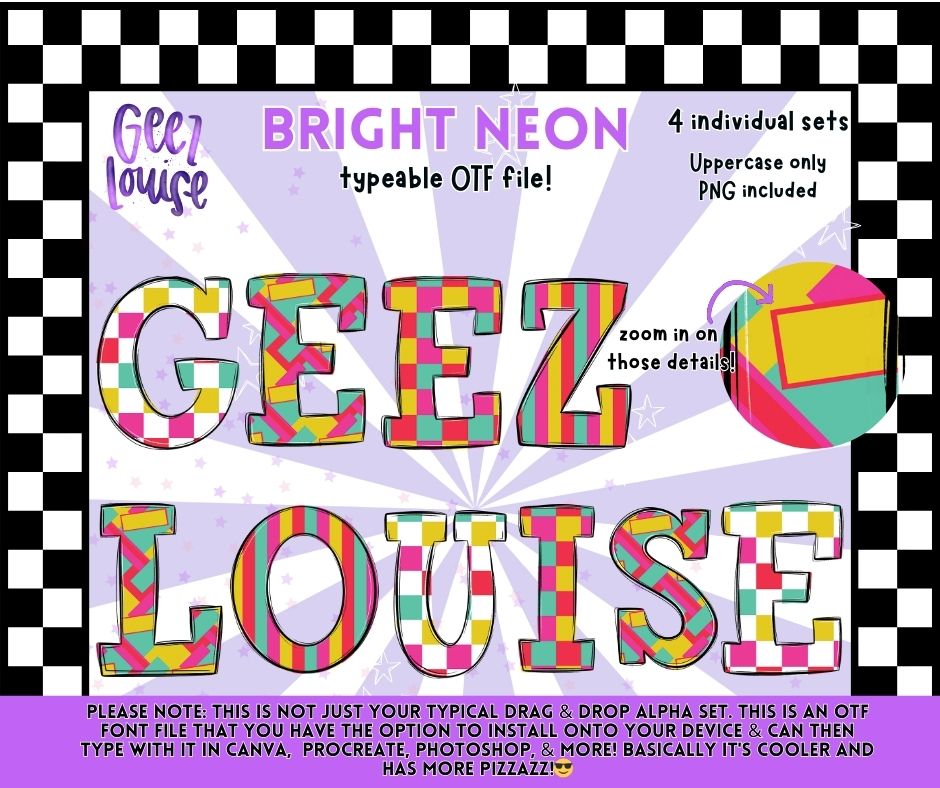
Bright Neon Typeable OTF Alpha Font + PNG Set (Uppercase)
Turn the volume all the way up with Bright Neon, a bold, high-energy typeable OTF alpha font packed with color, pattern, and personality.
4 Individual Neon Pattern Styles
🎨 Design Style
Bright neon colors with bold outlines
Mix of retro, geometric, and playful patterns
Eye-catching, fun, and loud (in the best way)
If you’re tired of boring fonts and want something with serious visual punch, this one delivers.